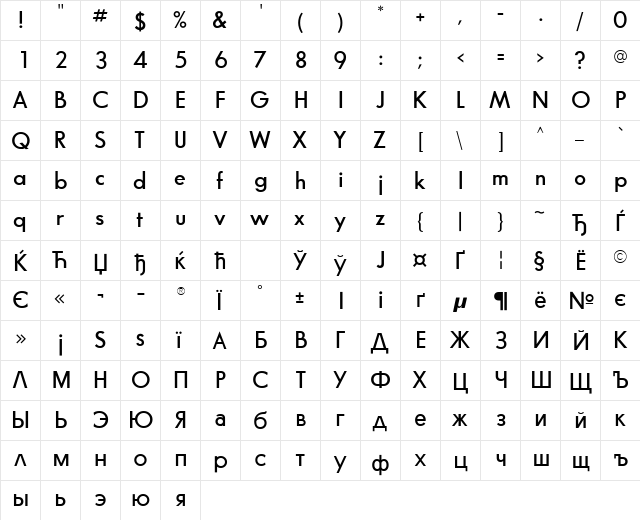
Glasnost Regular
Design Context for Glasnost Typeface
Glasnost is a composed and adaptable typeface that performs quietly and consistently across a wide range of design contexts.